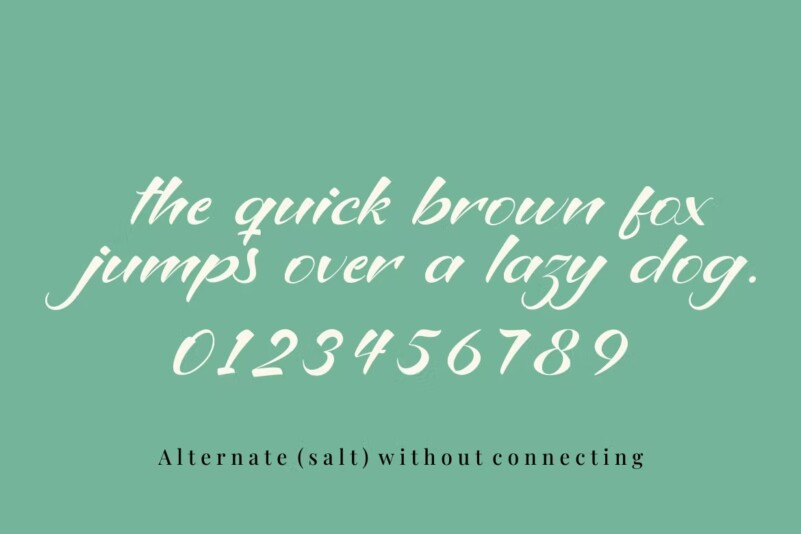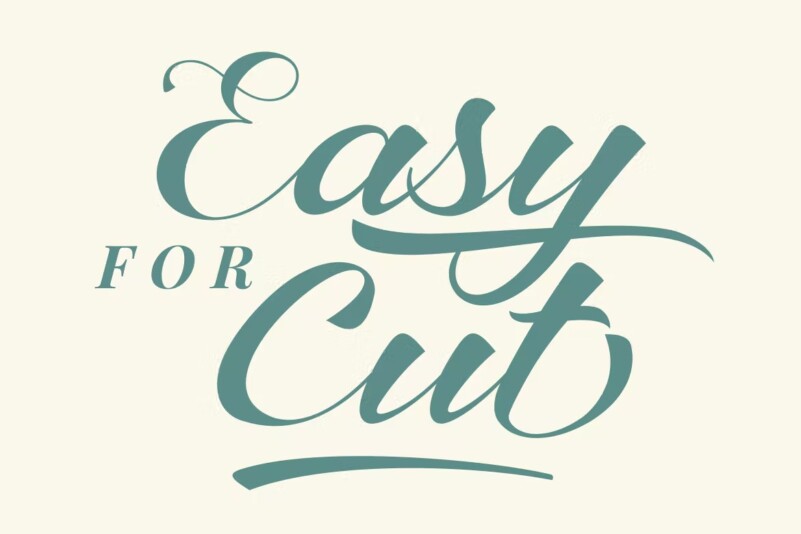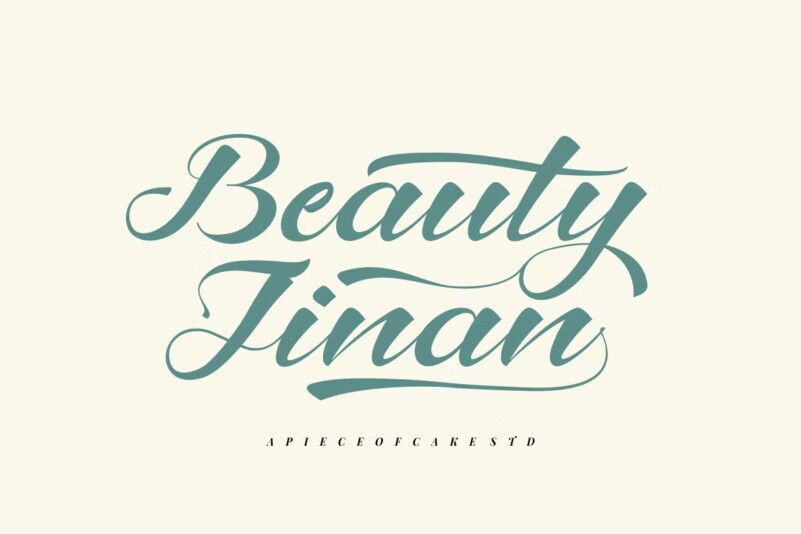
Beauty Jinan – A Script Font
Introducing, Beauty Jinan is a beauty script font suitable for your design project needs, such as; wedding themes, social media posts, quotes, overlays on images, tagline logos, posters, print needs, website banners, and more.